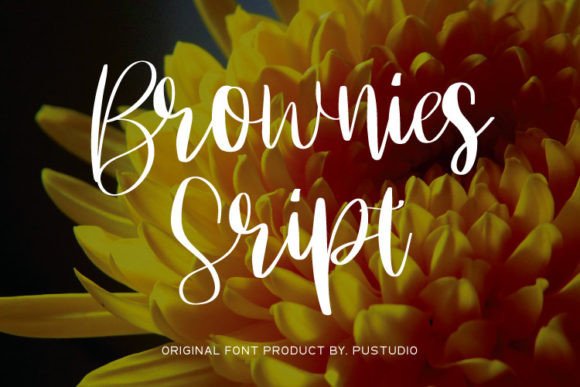
Introducing Brownies Script Font, the epitome of elegance and charm. Immerse yourself in a world of captivating typography, where handwritten aesthetics intertwine with modern sophistication. Inspired by the timeless allure of calligraphy, this font family graces your designs with an aura of distinction.
Crafted by the visionary artists at pustudio, Brownies Script is a testament to their unwavering commitment to excellence. Its meticulously crafted curves and delicate flourishes evoke a sense of artistry that breathes life into your creative endeavors.
As a script font, Brownies Script exudes a natural, flowing beauty that transforms ordinary words into breathtaking works of art. Its graceful lines dance across the page, creating an enchanting visual rhythm that captivates the eye.
Whether you're designing wedding invitations, heartfelt thank-you cards, or inspiring quotes, Brownies Script adds a touch of magic to every project. Its versatility extends to greeting cards, logos, business cards, and any design that yearns for a handwritten touch.
With Brownies Script, you possess the power to transform the ordinary into the extraordinary. Its timeless elegance elevates your designs, leaving an unforgettable impression on your audience. Embrace the allure of Brownies Script and embark on a creative journey where beauty and sophistication converge.